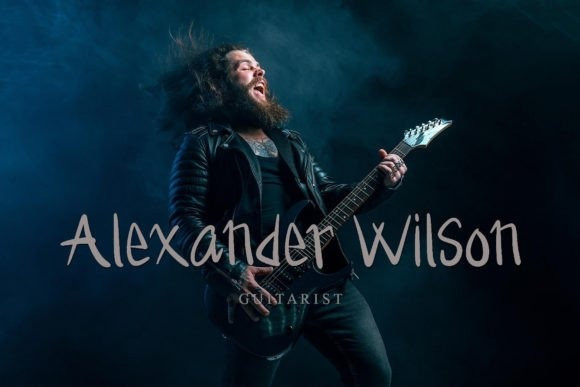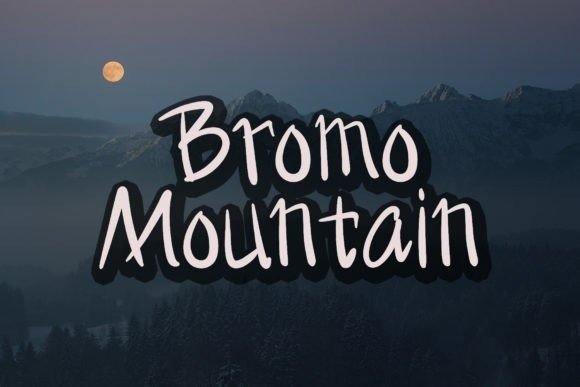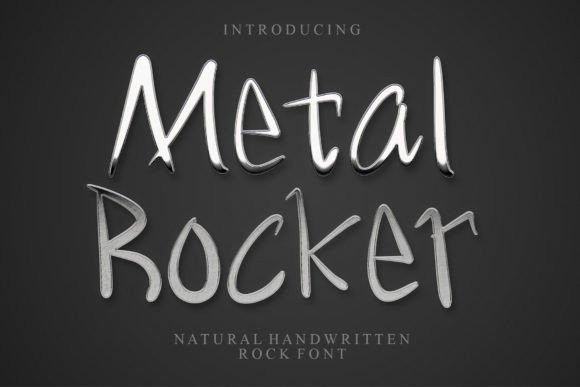
Metal Rocker Font
Metal Rocker Font is a natural handwritten font. It looks stunning on thank you cards, quotes, greeting cards, logos, business cards, and every other design which needs a handwritten touch.